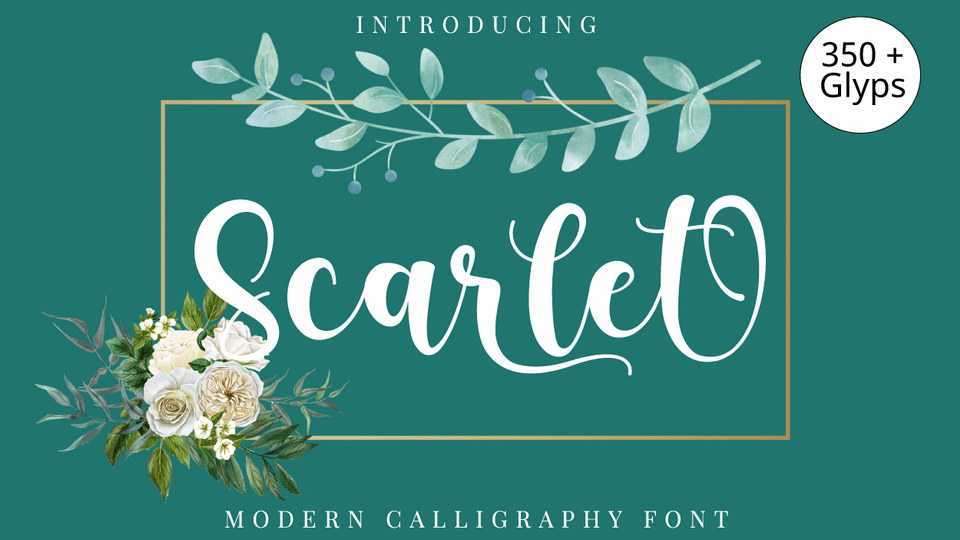
Download Scarlet font, a modern and romantic calligraphy typeface. Scarlet’s friendly feel makes this font look adaptable and chic, fitting a wide range of contexts.
Designer: sugiharto